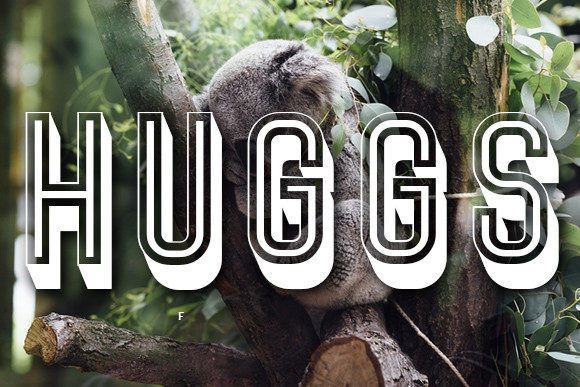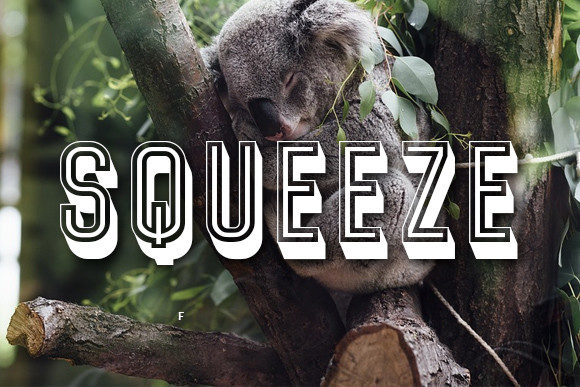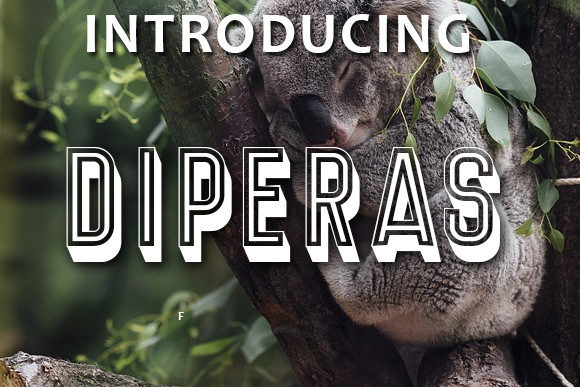
Introducing Diperas Font: Elevate Your Designs with Stunning 3D Display
Are you tired of using the same old fonts in your designs? Look no further! Diperas Font is here to revolutionize the way you create stunning visual content. This awesome 3D display font is designed to fit perfectly on each of your designs, offering endless possibilities for creative expression.
What Makes Diperas Font So Special?
Diperas Font is not just another font; it’s an experience. Its 3D display capabilities add a new dimension to your designs, making them stand out in a crowded digital landscape. Whether you’re working on a logo, a poster, or a social media graphic, Diperas Font is the perfect choice for designers and crafters looking to add a touch of sophistication and elegance.
Key Features of Diperas Font
- Unique 3D Display: Diperas Font boasts a stunning 3D effect that adds depth and visual interest to your designs.
- High Versatility: With its clean and modern design, Diperas Font can be used across various platforms and design applications.
- Endless Variations: Experiment with different sizes, colors, and styles to create unique and personalized designs.
- Pair with Other Fonts: Combine Diperas Font with complementary fonts to create visually appealing contrast.
- Experiment with Colors: Take advantage of Diperas Font’s 3D effect by using vibrant colors that enhance its depth and dimension.
- Play with Sizes: Use different font sizes to create hierarchy and emphasis in your designs.
Who Can Benefit from Diperas Font?
Diperas Font is perfect for:
- Graphic Designers: Looking for a unique and versatile font to elevate their designs.
- Digital Artists: Seeking to add a 3D effect to their artwork.
- Crafters: Creating handmade cards, scrapbooking, or other paper crafts that require a personalized touch.
- Marketeers: Needing a standout font for branding, advertising, or social media campaigns.
Diperas Font is more than just a font; it’s a creative tool that can transform your designs. With its stunning 3D display, versatility, and ease of use, it’s an excellent addition to any designer’s toolkit. Have fun exploring the endless variations of Diperas Font and take your designs to new heights!